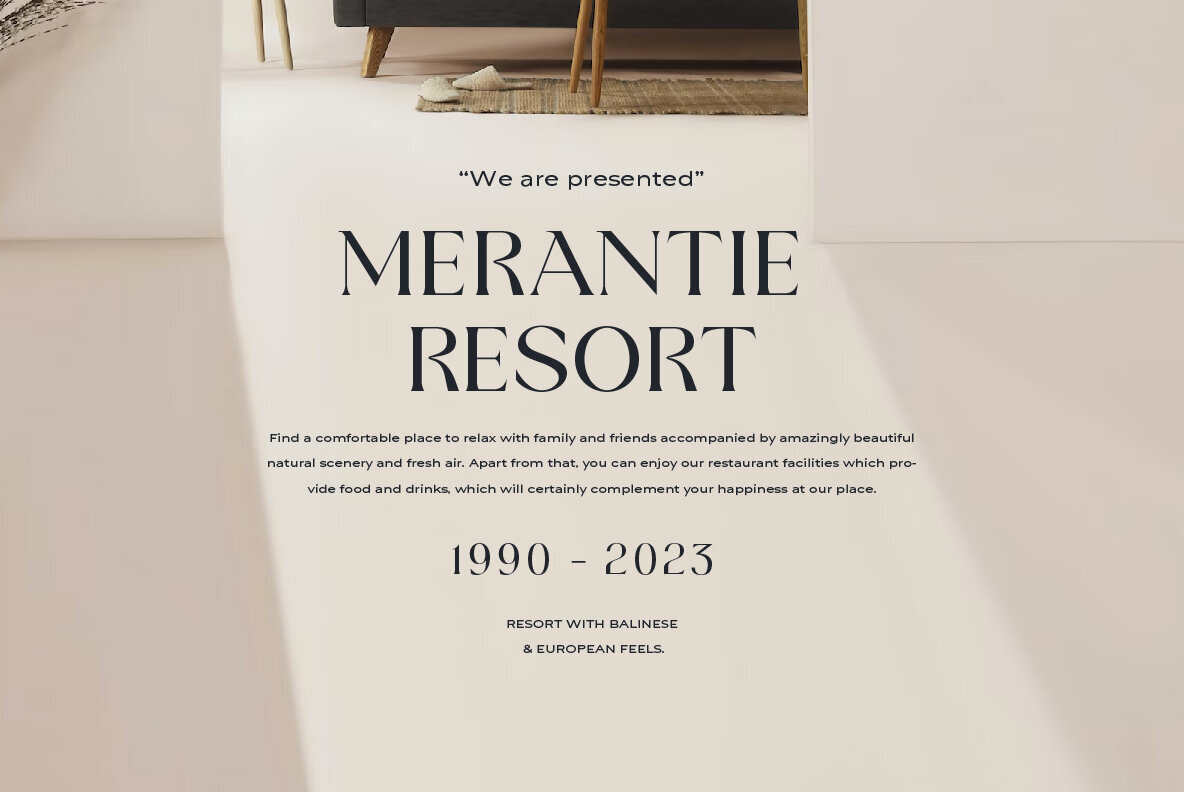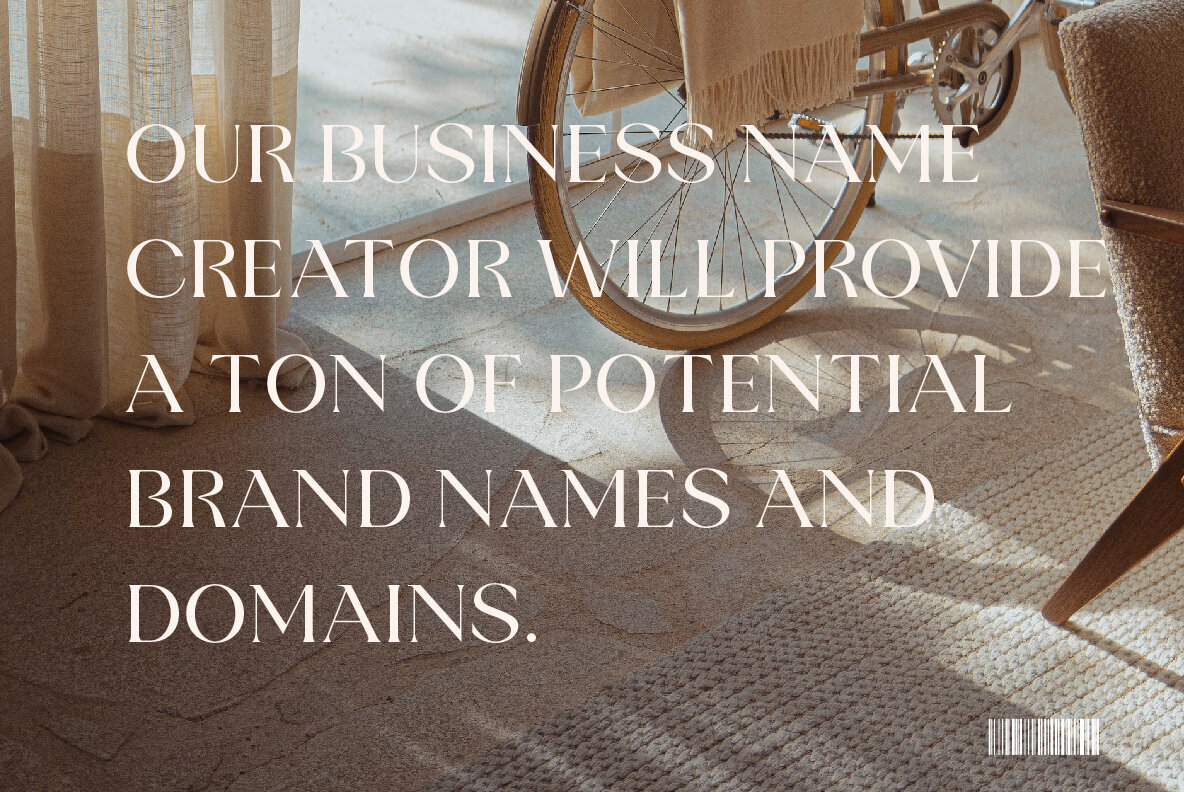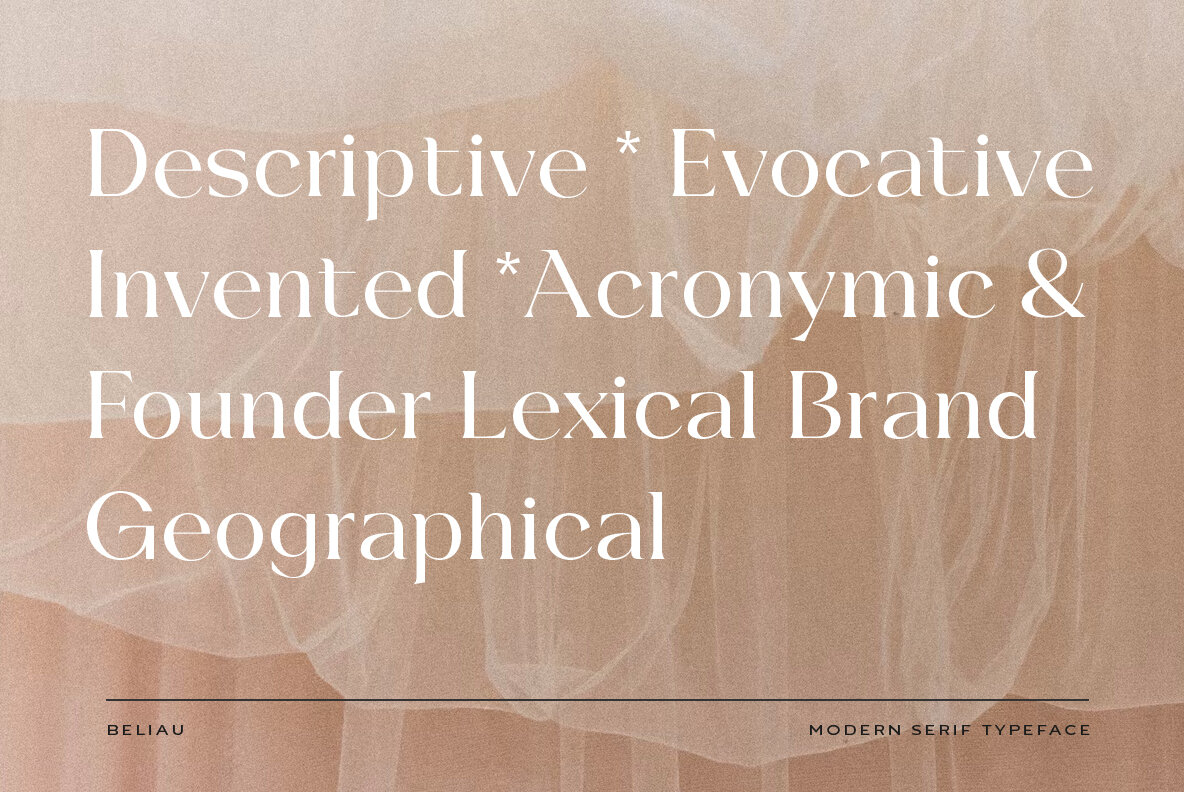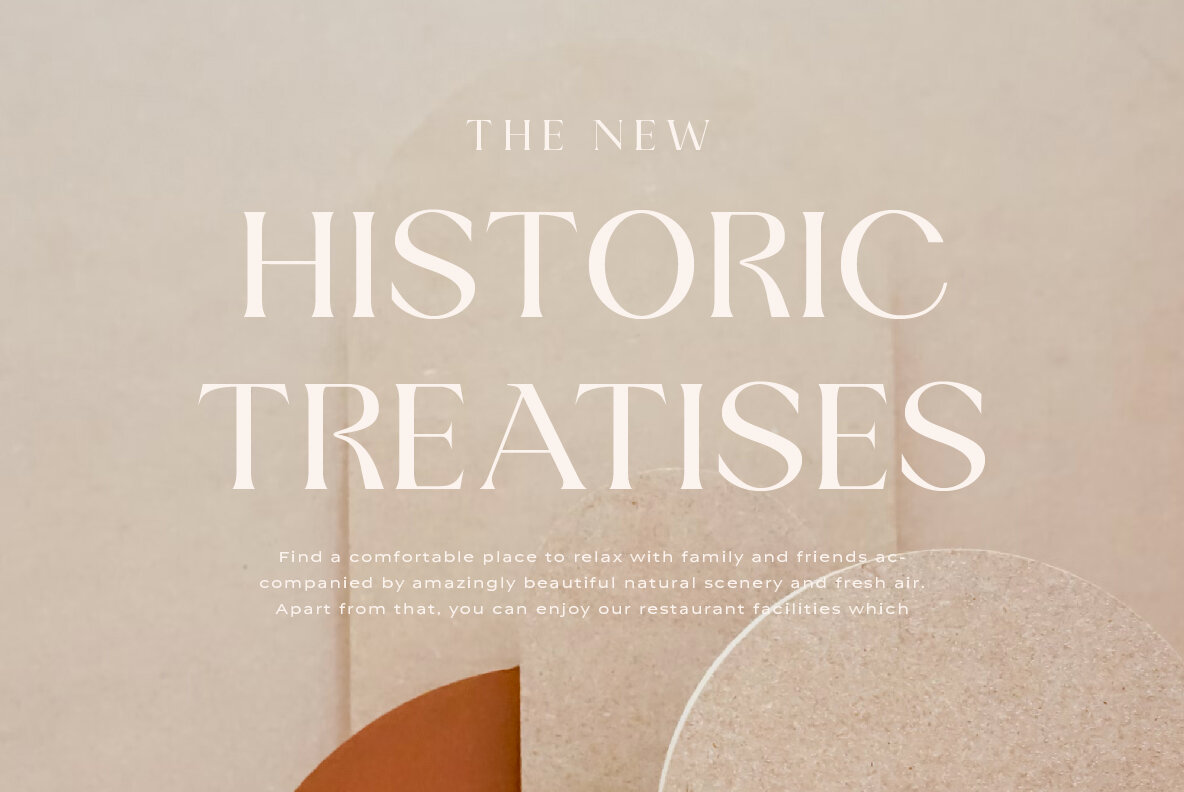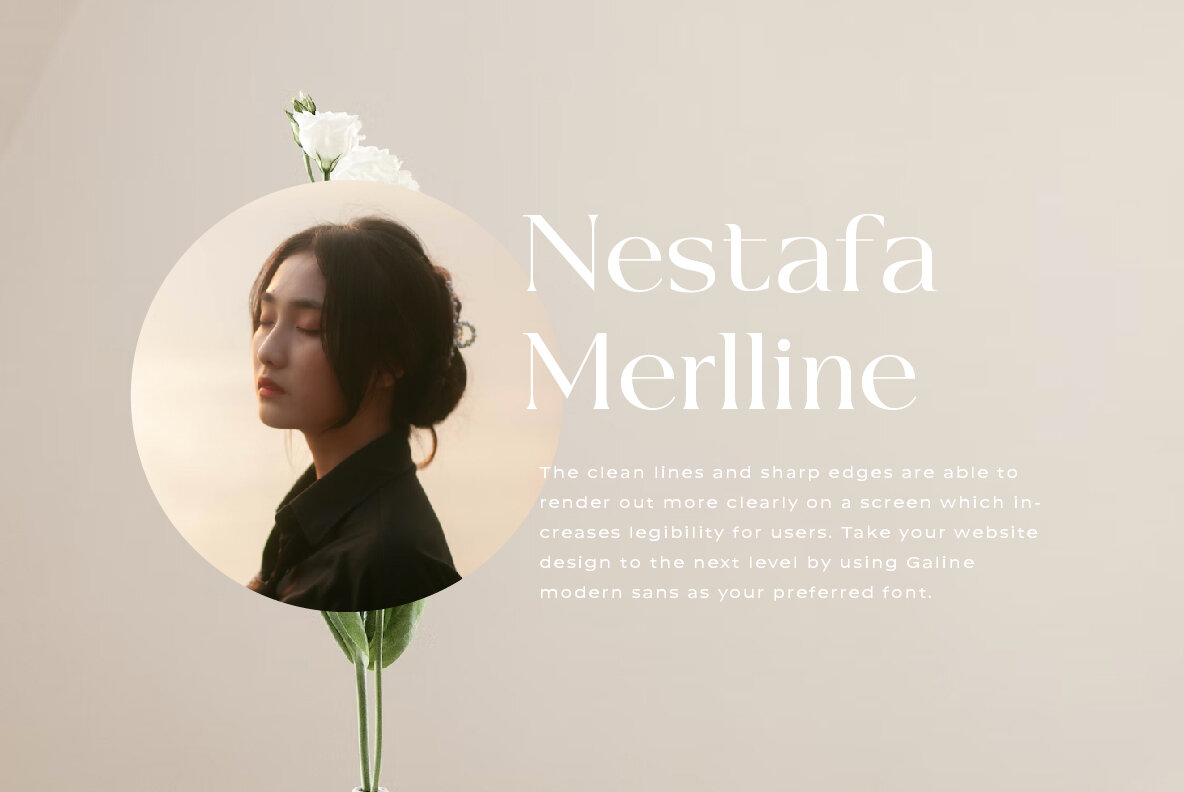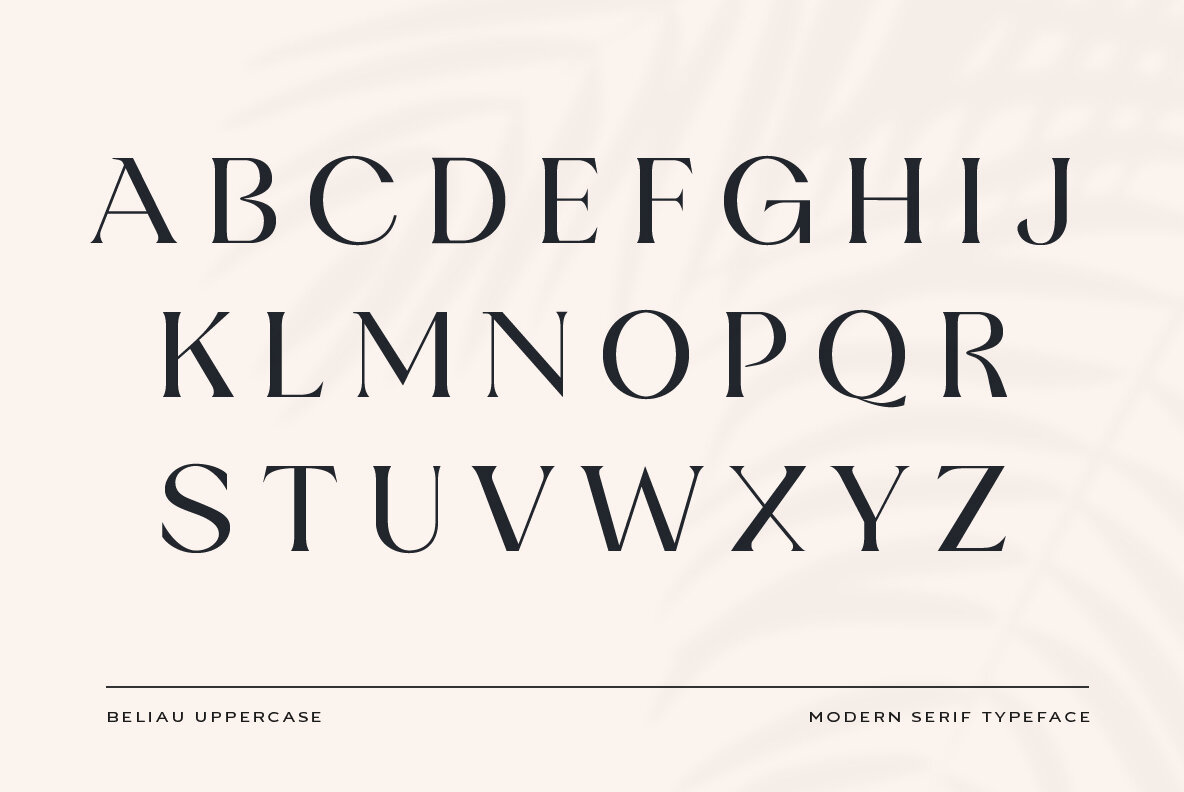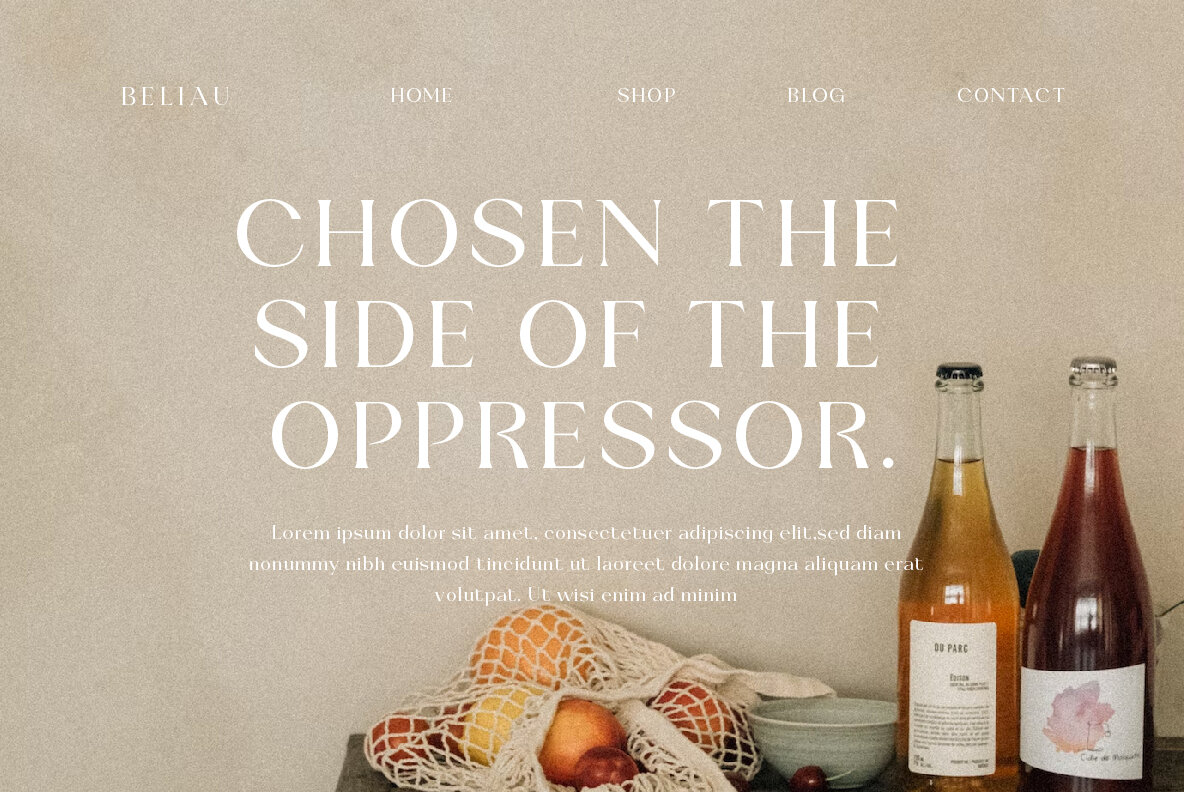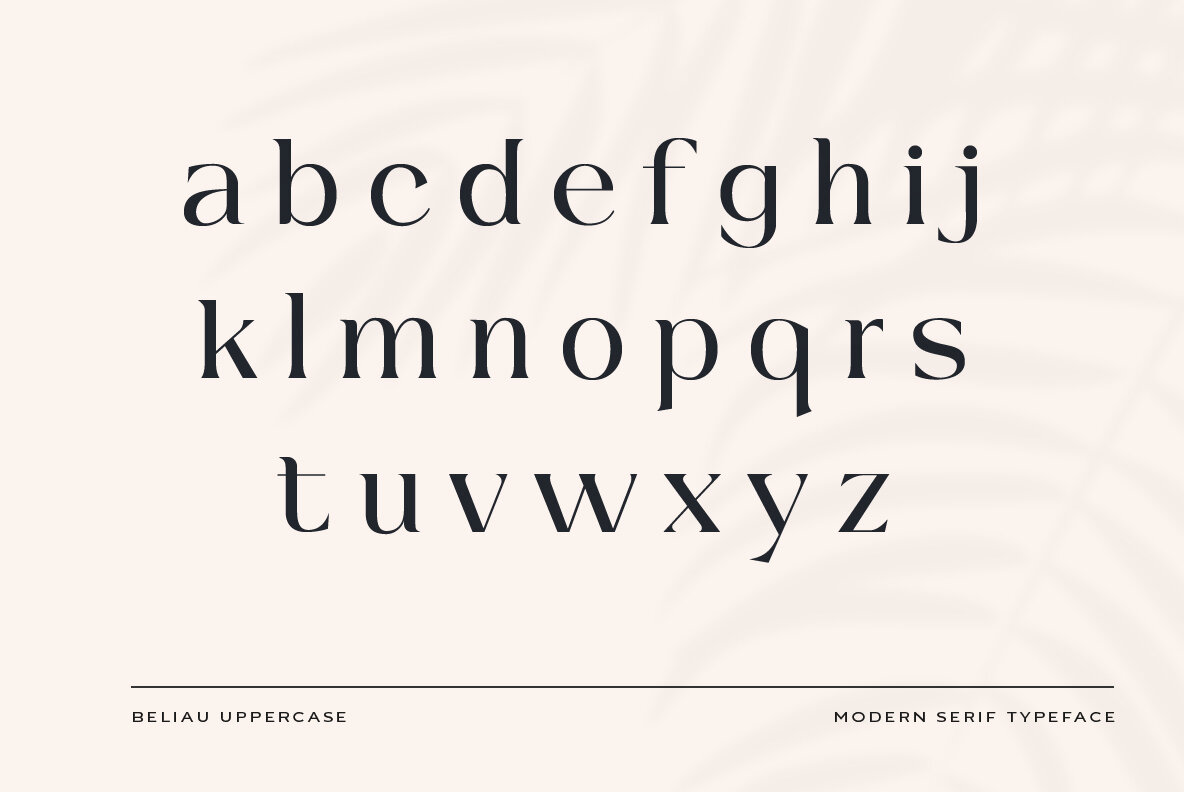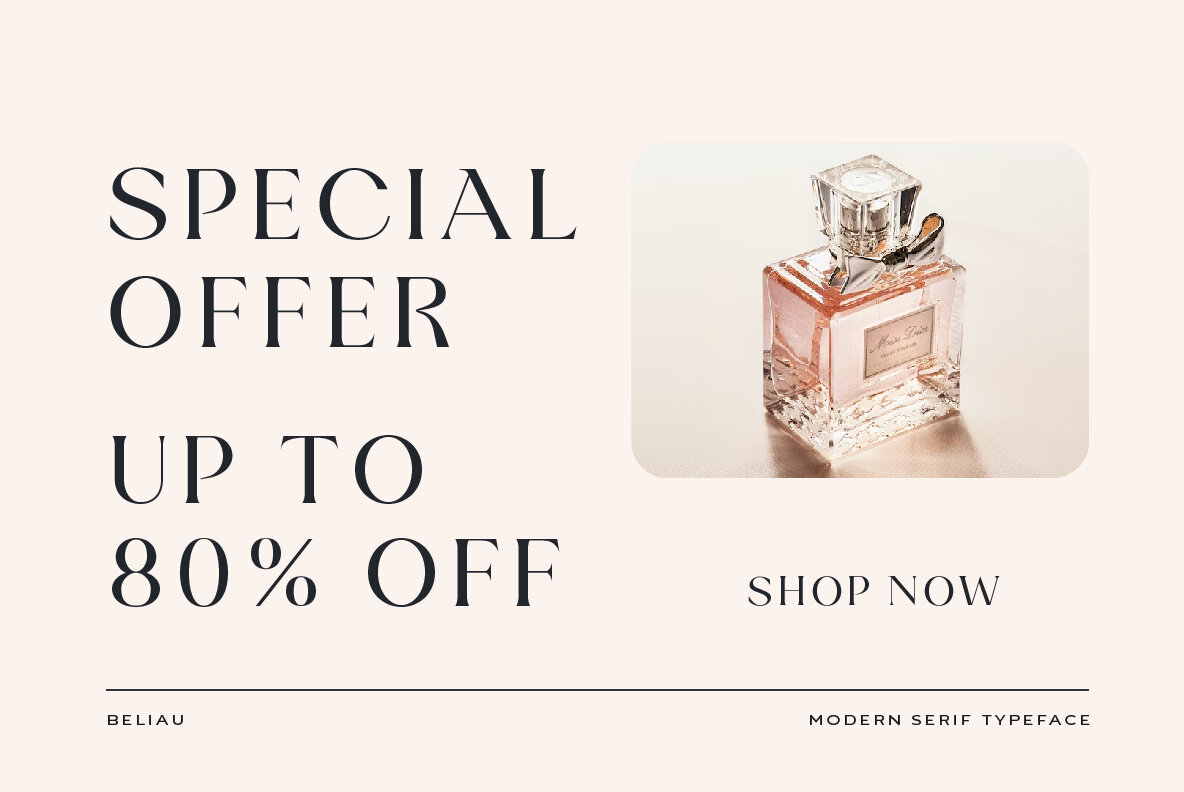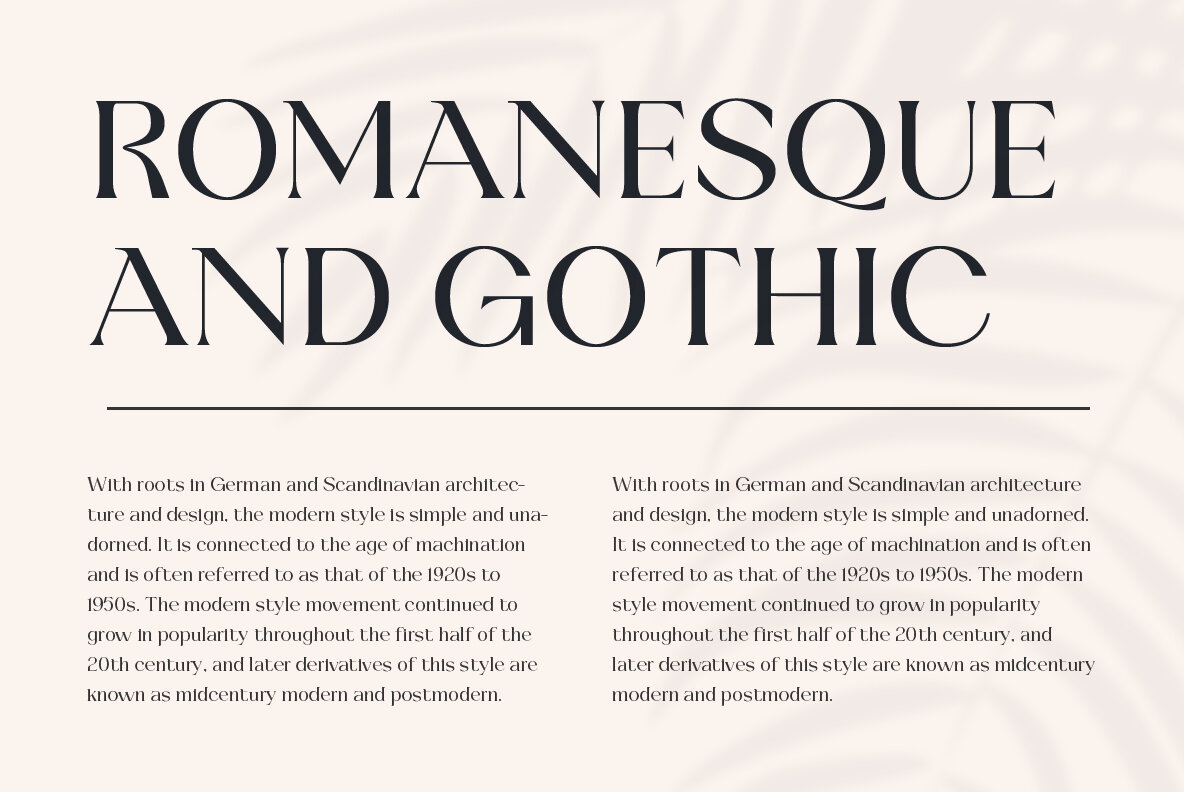
Beliau Font
Beliau Regular
Beliau is a modern serif typeface that has been expressly designed for high-resolution displays and print media. With its elegant appearance and finely balanced proportions, it is perfect for headline text, corporate branding, and other design applications where a touch of refinement is required.